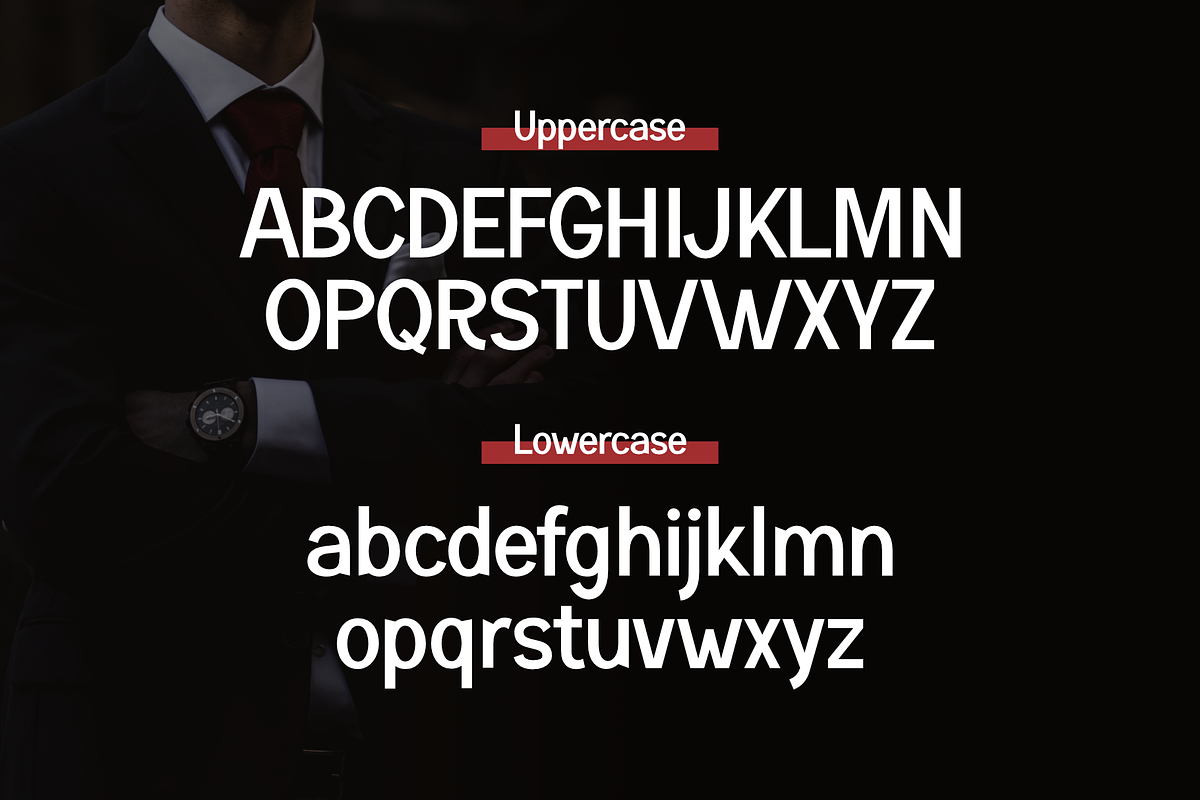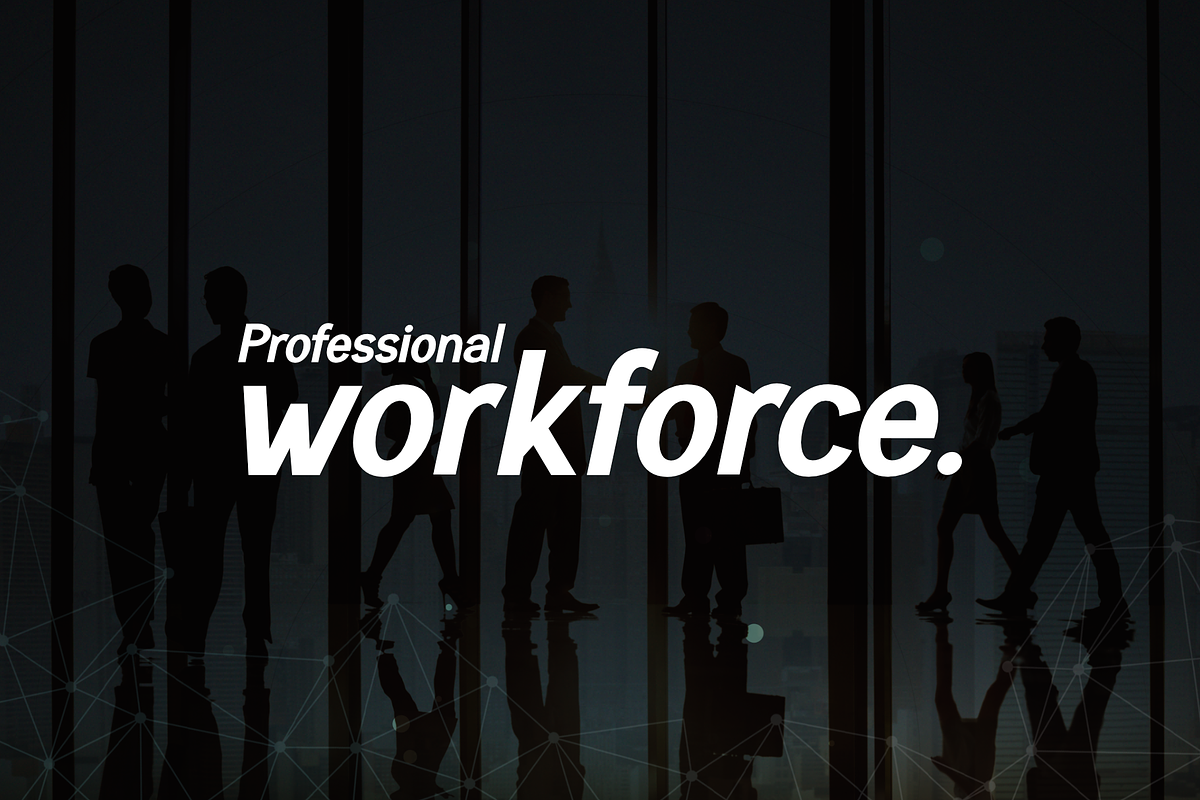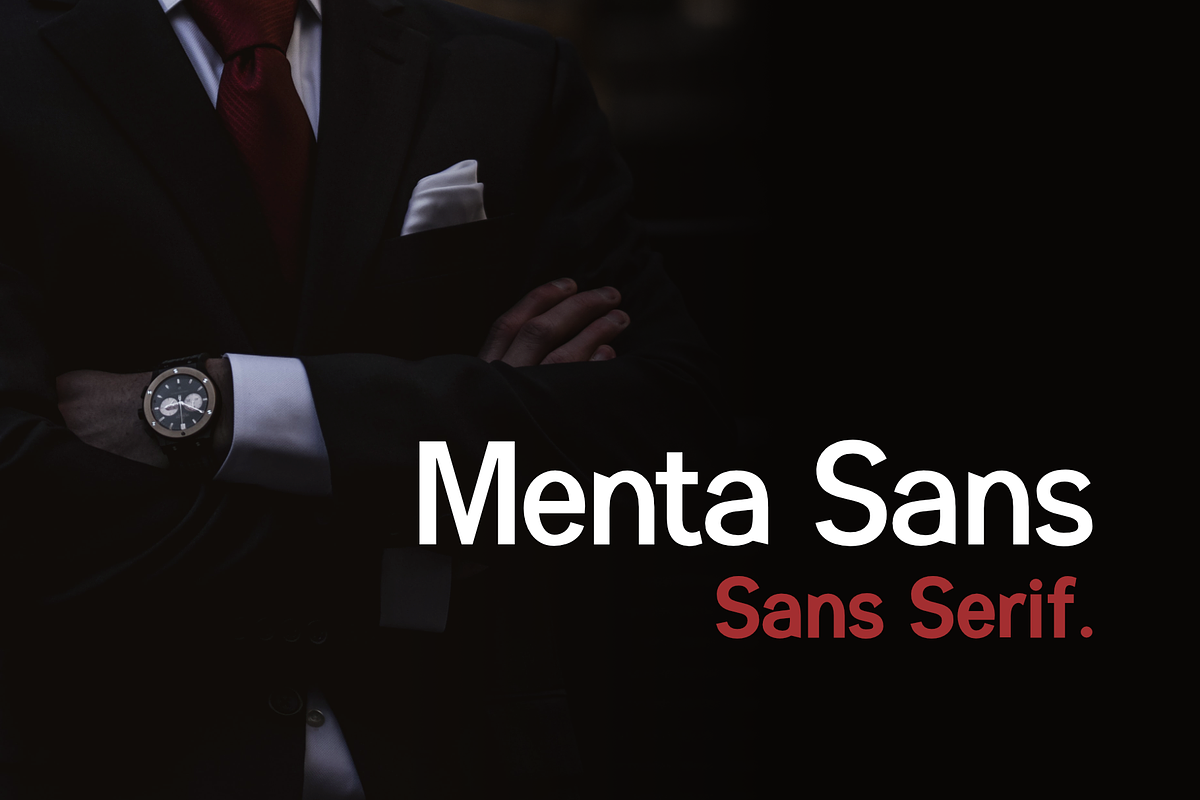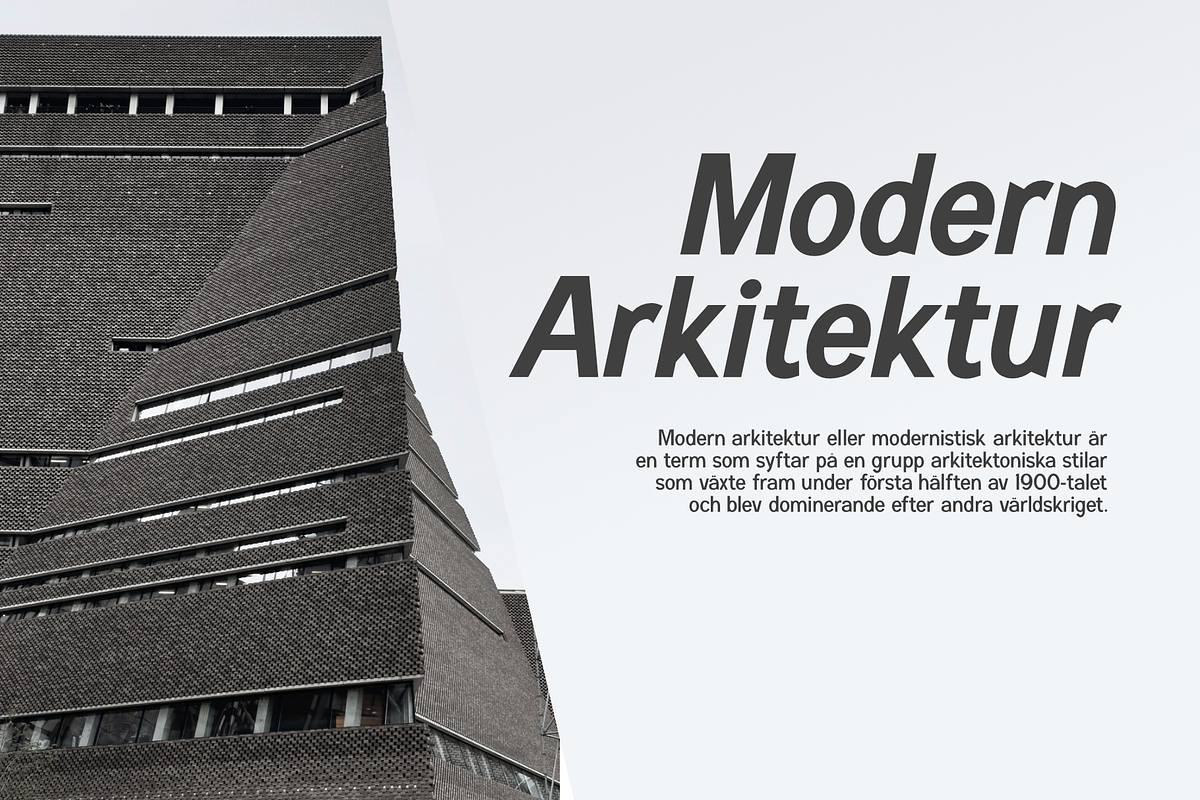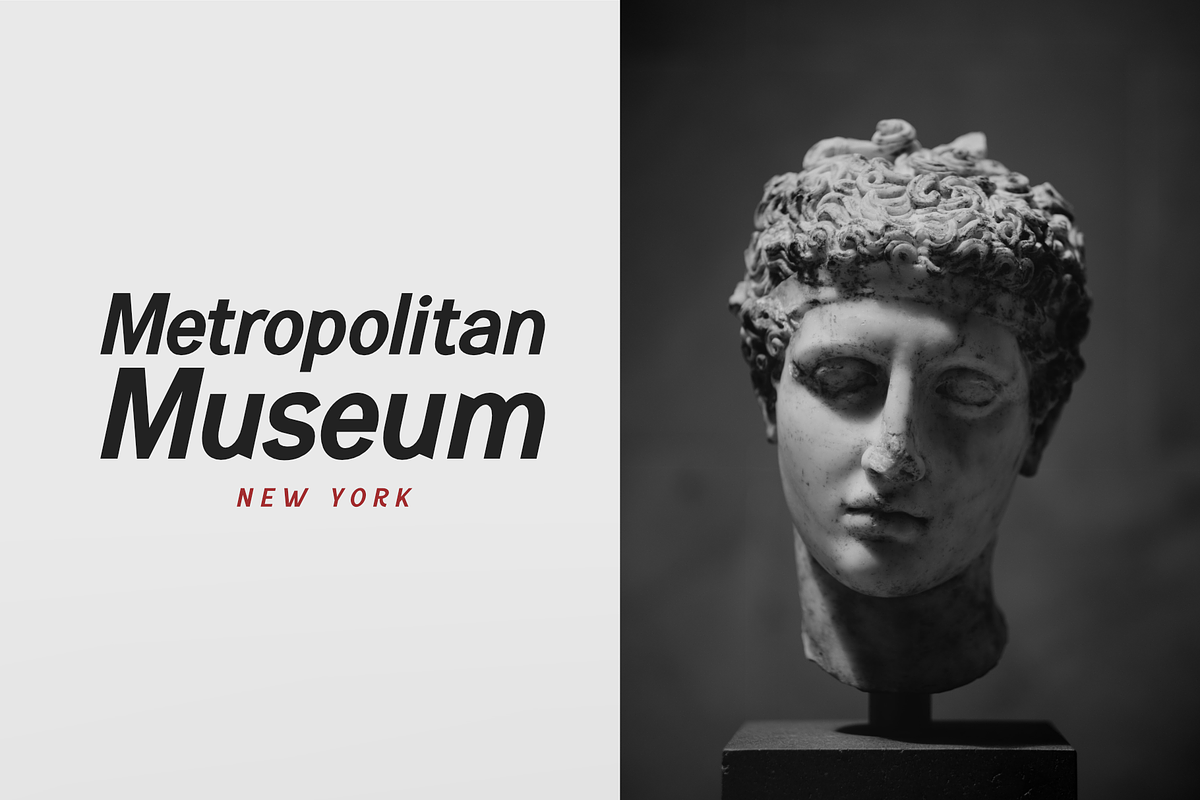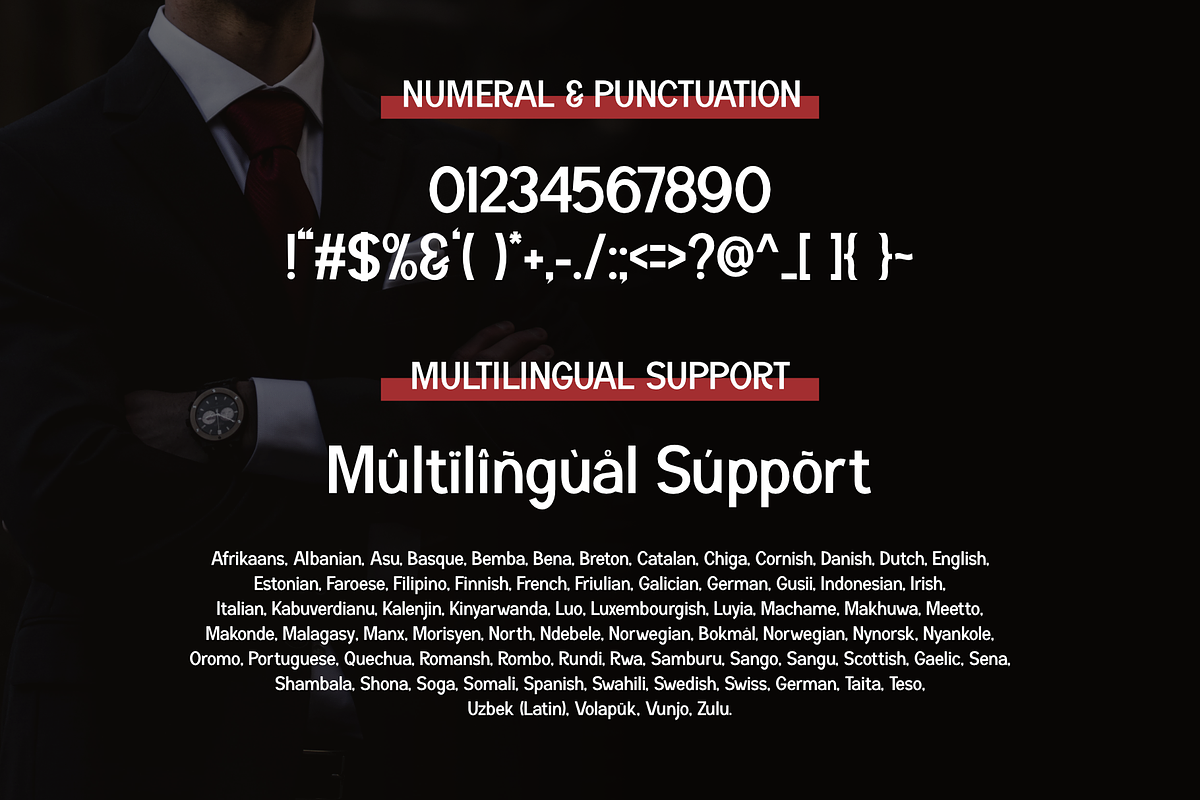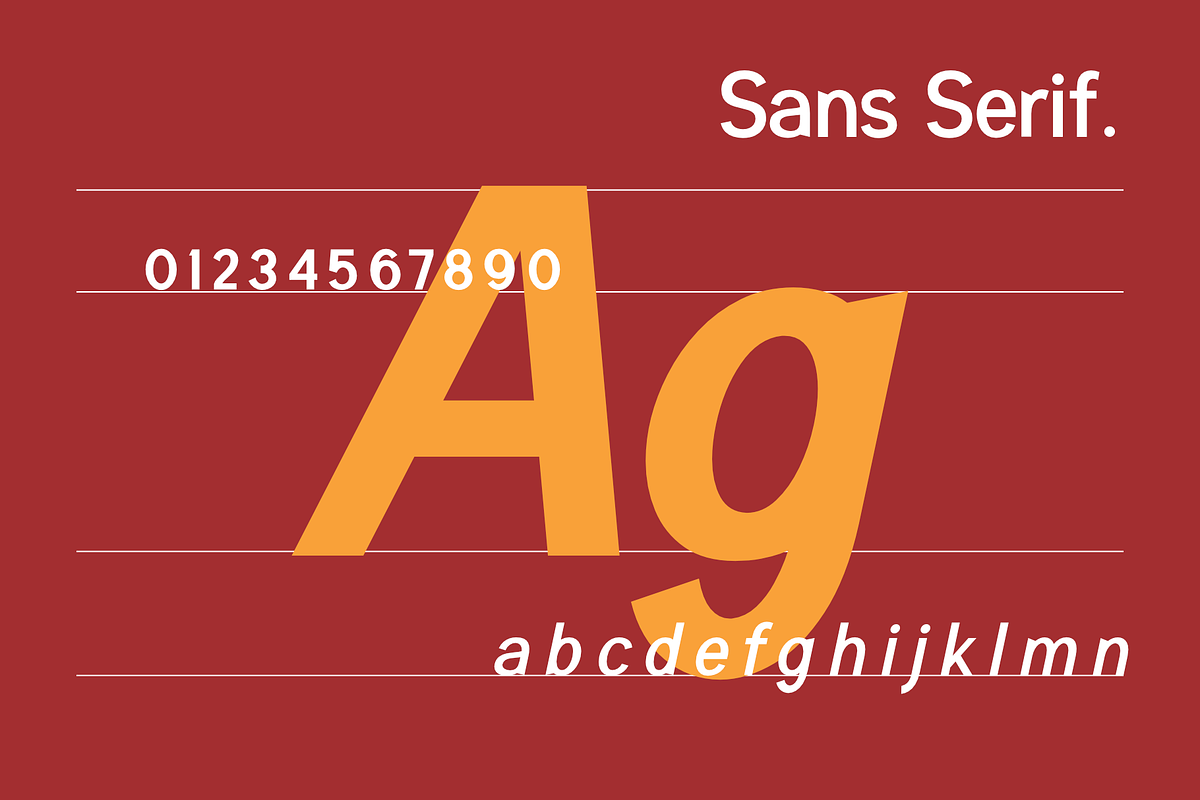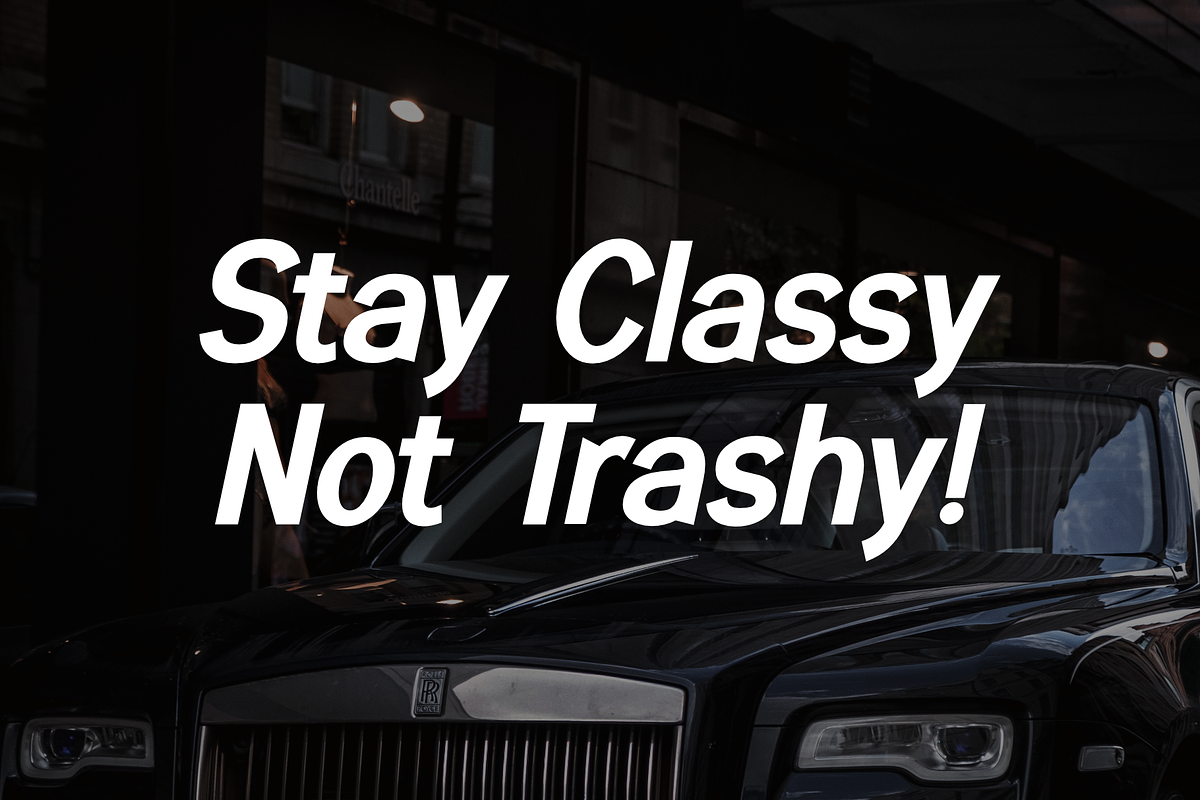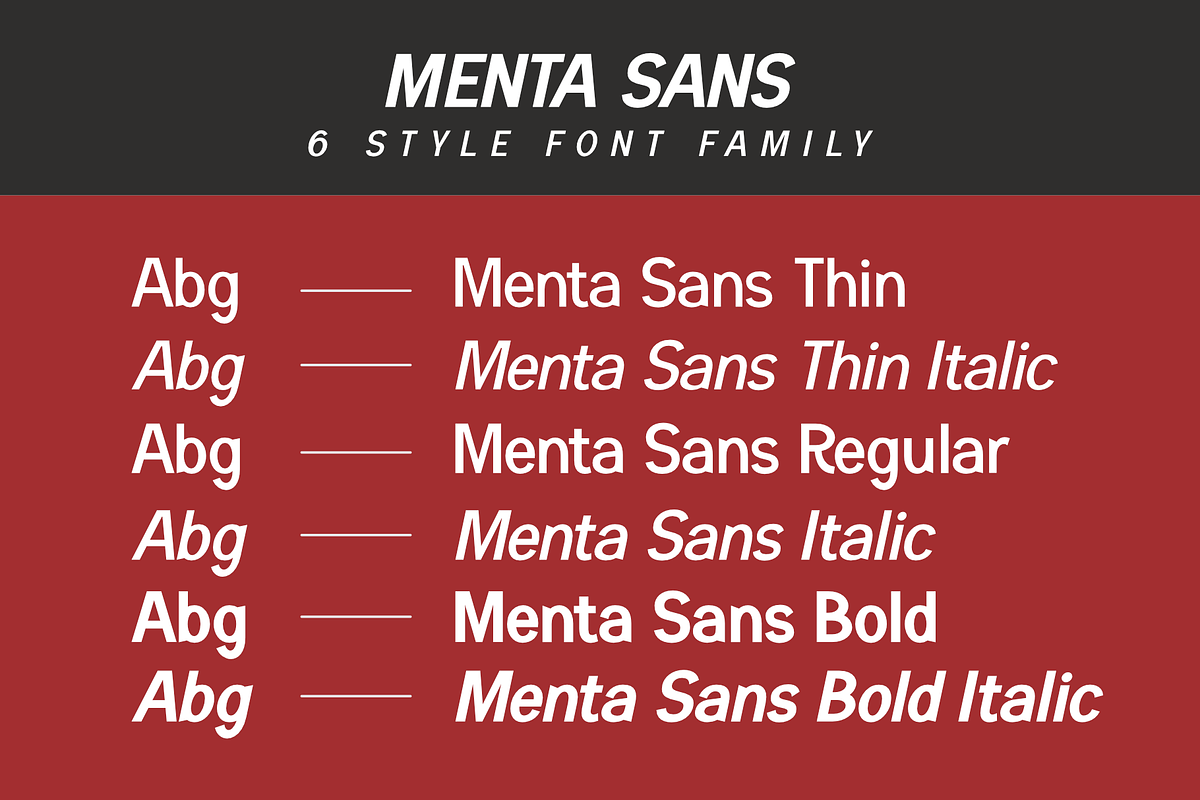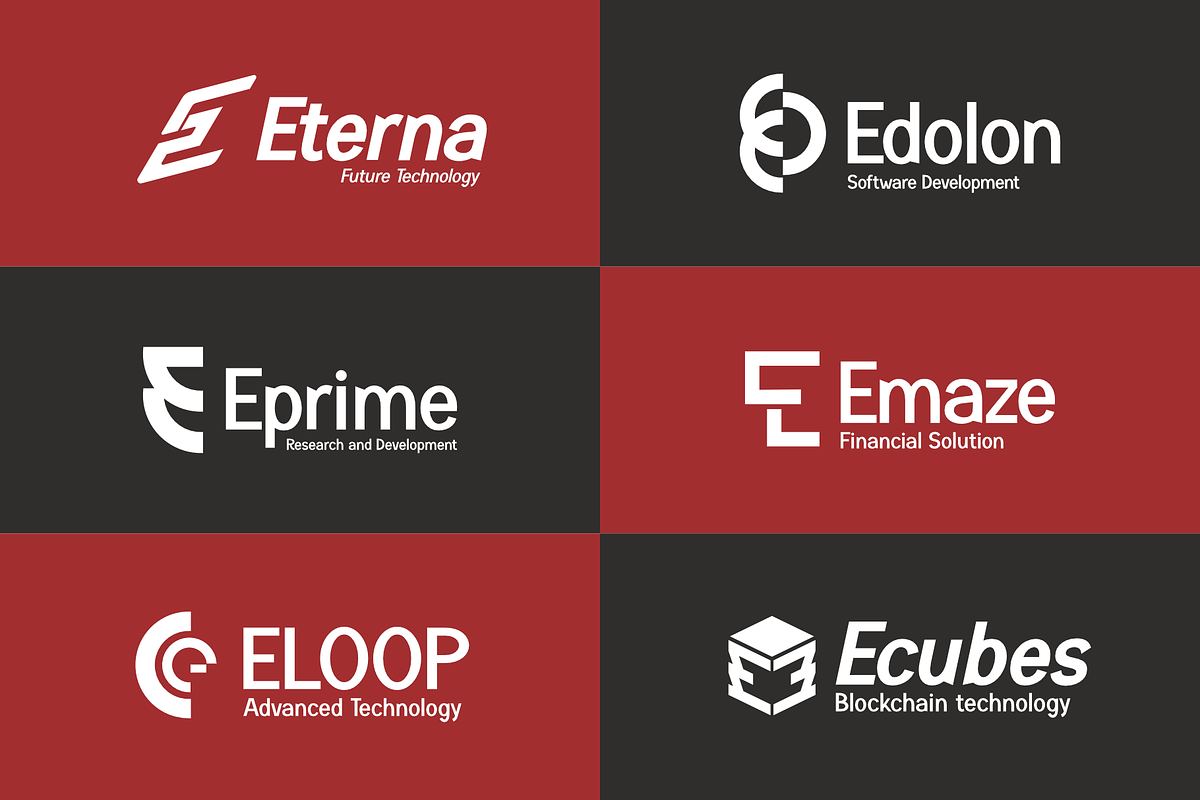
Menta Sans - Sans Serif
Menta Sans is an elegant Sans Serif Font created by Dumadistyle. With a natural and modern style, this font is perfect for your project designs. Menta Sans was created to help you improve the quality of your design, especially in branding your company. This font includes 6 font families Styles Regular, Italic, Thin, Thin Italic, Bold, Bold Italic, complete with upper and lower case.
The Menta Sans font comes with a modern style that is perfect for various design purposes, such as Logos, Titles, Book Covers, Branding, quotes, advertisements. film cover, company name, Headline, and more. Check out the preview above to get a match for your project. Stay classy!
- Multilingual Accent
These Font Support Languages:
Afrikaans, Albanian, Asu, Basque, Bemba, Bena, Breton, Catalan, Chiga, Cornish, Danish, Dutch, English, Estonian, Faroese, Filipino, Finnish, French, Friulian, Galician, German, Gusii, Indonesian, Irish, Italian, Kabuverdianu, Kalenjin, Kinyarwanda, Luo, Luxembourgish, Luyia, Machame, Makhuwa, Meetto, Makonde, Malagasy, Manx, Morisyen, North, Ndebele, Norwegian, Bokmål, Norwegian, Nynorsk, Nyankole, Oromo, Portuguese, Quechua, Romansh, Rombo, Rundi, Rwa, Samburu, Sango, Sangu, Scottish, Gaelic, Sena, Shambala, Shona, Soga, Somali, Spanish, Swahili, Swedish, Swiss, German, Taita, Teso, Uzbek (Latin), Volapük, Vunjo, Zulu.